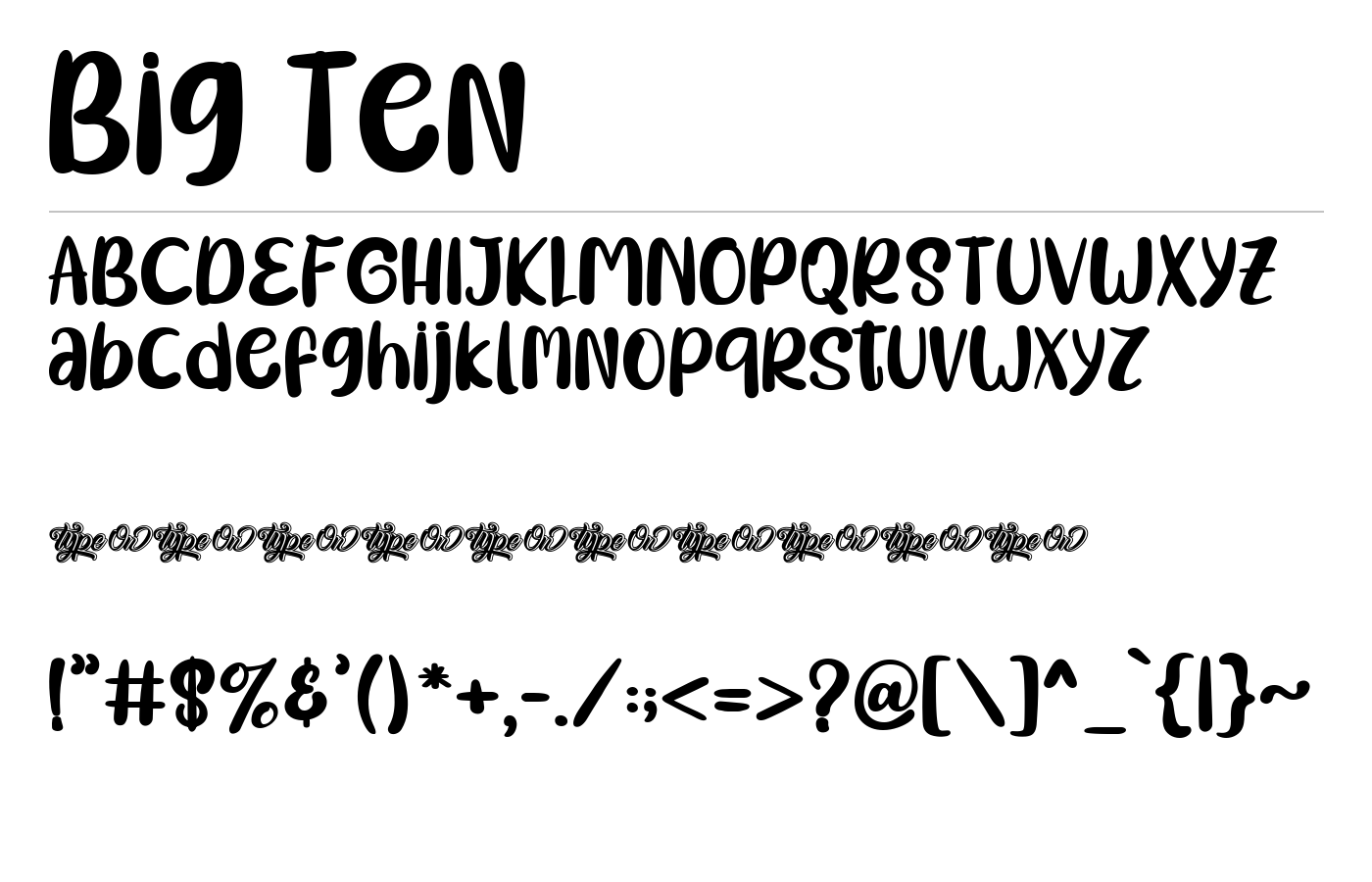
Big Ten is a playful and casual handwritten sans serif font with rounded, slightly irregular letterforms that create a friendly and approachable vibe. Its medium weight and uniform stroke contrast, combined with tall x-height and quirky character shapes, make it ideal for informal branding, children’s materials, and creative projects seeking warmth and personality. This font works best for headlines, logos, and packaging where an inviting, fun feel is desired.
Big Ten Font
About Big Ten Font